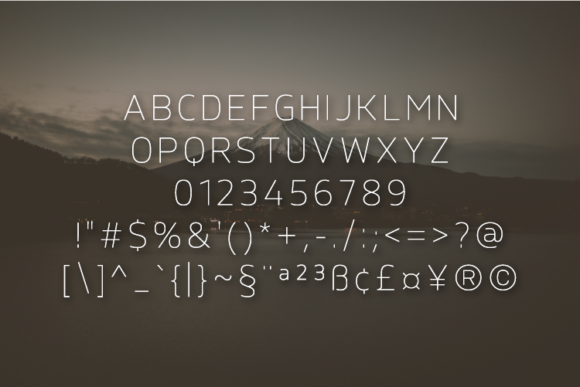
Introduction to Espinoza Font
Have you ever been working on a creative project and stumbled upon the perfect font that elevates your design from good to great? For many designers, this moment is what makes all the hard work worth it. It’s the moment when the words on the page come alive, and the entire design falls into place. For those who have experienced this magic, we’re excited to introduce the Espinoza Font, a beautiful sans serif font that’s about to become your new favorite design resource.
Key Features of Espinoza Font
- High-quality, professional font design ideal for creative projects and design resources.
- Transparent background, allowing for seamless integration with any image or design element.
- Character set includes a wide range of characters, including Latin, Cyrillic, and Greek alphabets, as well as punctuation marks and symbols.
- Designed to be highly legible at various resolutions, including 72 dpi, 96 dpi, and 300 dpi, making it suitable for both digital and print projects.
- Unique, handcrafted design that adds a touch of elegance and sophistication to any creative project or design resource.
Honest Review: Espinoza Font
I recently had the opportunity to work with the Espinoza Font, and I must say, it’s been a game-changer for my design projects. This high-quality font is perfect for anyone looking to add a touch of elegance to their creative project.
One of the things that stood out to me was the transparent background, which makes it incredibly easy to use in a variety of design contexts. Whether you’re working on a logo, business card, or web page, the Espinoza Font is a versatile design resource that’s sure to impress.
- ✨ High-quality design that looks great on any screen
- ✨ Easy to read and use, even in small font sizes
Of course, no font is perfect, and I did encounter a few limitations:
- ⚠️ Limited language support, which may be a concern for designers working on international projects
- ⚠️ Not suitable for use in very small font sizes, where the text may become difficult to read
Overall, I’m really impressed with the Espinoza Font. It’s a great design resource that’s perfect for anyone looking to add a touch of sophistication to their creative project. Whether you’re a seasoned designer or just starting out, this font is definitely worth checking out.
How to Use Espinoza Font
The Espinoza Font is a high-quality, versatile font suitable for various creative projects. Its transparent background makes it an excellent choice for designers who want to add a touch of elegance to their designs.
Tips for Getting the Most Out of Espinoza Font
To get the most out of the Espinoza Font, experiment with different font sizes, colors, and combinations to achieve the desired look for your design.
The Espinoza Font is suitable for a variety of design projects, including:
Alternatives to Espinoza Font
Open Sans is a high-quality, modern sans-serif font ideal for creative projects that require a clean and transparent background. It’s available for free download and is a popular design resource among designers. Open Sans is a great alternative to Espinoza Font when you need a more minimalist and legible font for body text.
Comparison: Open Sans is more versatile and has a wider range of styles, making it a better choice for projects that require multiple font weights and styles.
Lato is a beautiful, high-quality font with a unique character and a transparent background. It’s a great design resource for creative projects that require a elegant and sophisticated look. Lato is a good alternative to Espinoza Font when you need a font with a more classic and timeless feel.
Comparison: Lato has a more classic and elegant feel compared to Espinoza Font, making it a better choice for projects that require a more traditional and sophisticated look.
Montserrat is a high-quality, urban sans-serif font with a transparent background. It’s a great design resource for creative projects that require a modern and edgy look. Montserrat is a good alternative to Espinoza Font when you need a font with a more industrial and modern feel.